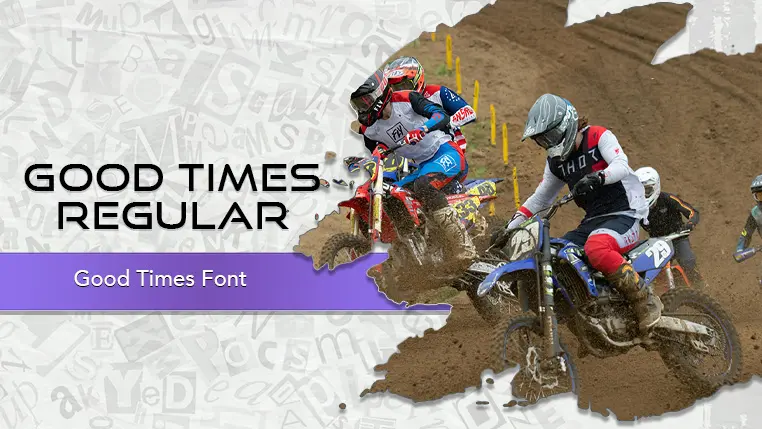
The Good Times font family may be ideal for you if you enjoy working on an artistic design project. The lively, expressive look of this typeface, which was created by Typodermic Fonts, makes it ideal for Logos and Branding. Its strong visual presence makes it perfect for grabbing attention in titles, posters, and headlines. Its clean, geometric forms ensure legibility at large sizes, making it suitable for signs, banners, and other display purposes. The font's origins in car lettering make it a good fit for sports branding, especially related to racing or high-tech gear. and other light-hearted visual projects.
Regular are the one primary font styles of the Good Times font family. You may build dynamic, visually appealing text layouts with the distinct flair that each style offers. With crisp, readable lines and a relaxed tone.